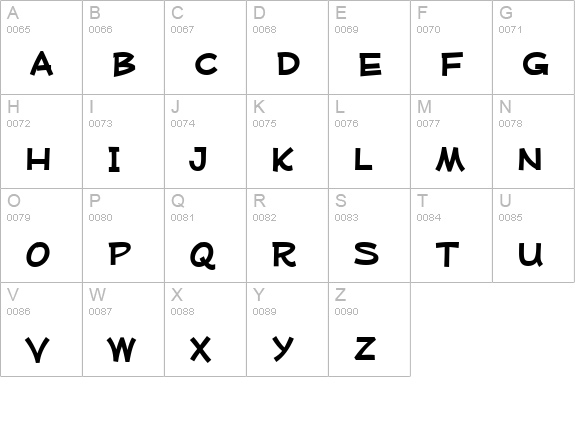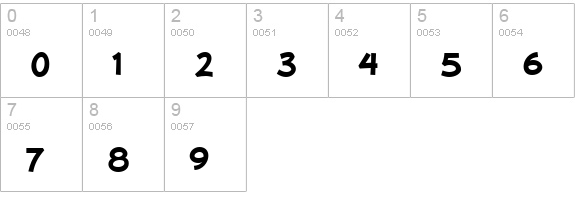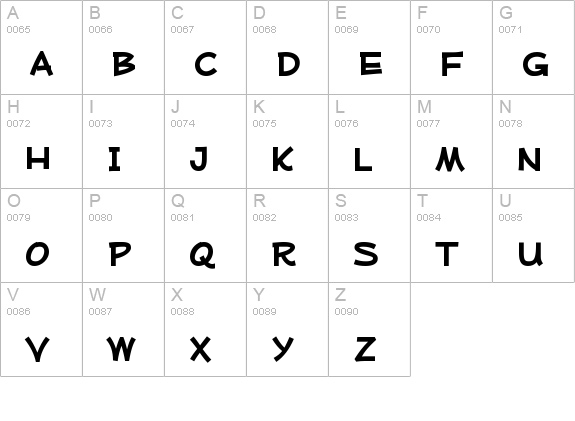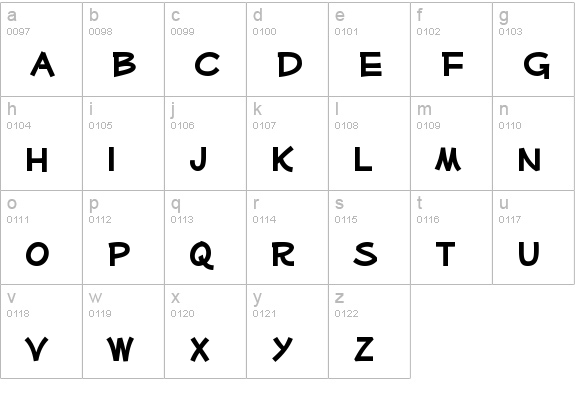
Mufferaw Bold is a strong, high-contrast variant in the Mufferaw typeface family \xE2\x80\x94 well suited to headlines, attention-grabbing titles, and strong calls-to-action.
Mufferaw Bold font is a striking display typeface that exudes strength and character. Its bold and distinctive letterforms make it perfect for creating eye-catching headlines, logos, and branding materials. With its rugged and robust appearance, Mufferaw Bold commands attention and leaves a lasting impression. What makes Mufferaw Bold even more appealing is that it is available for free download at FontsMarket.com. This means you can easily access this powerful font and incorporate it into your design projects without any cost. Whether you're a designer looking to add a bold touch to your work or a business owner seeking a standout font for your brand, Mufferaw Bold is a fantastic choice that won't break the bank. Download it today and make your designs stand out with this impactful and distinctive typeface.